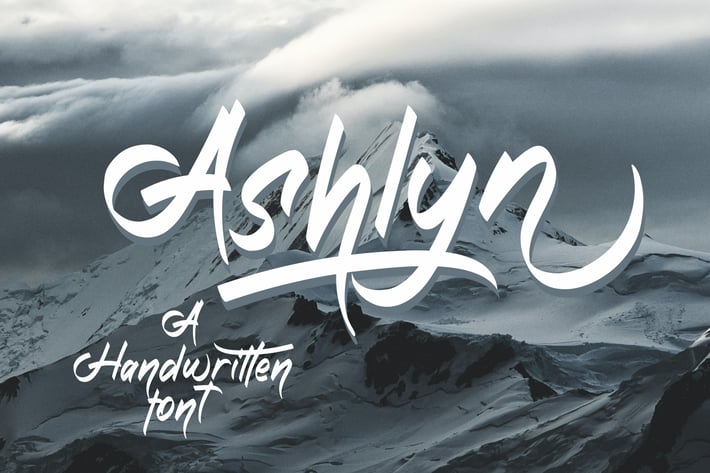
Ashlyn - Aesthetic Handwritten Font
Hello, let me introduce our new modern calligraphy font, it's called Ashlyn.
This font can be used easily and simply because there are many features in it. contains a complete set of lowercase and uppercase letters, assorted punctuation, numbers, and multilingual support. the font also contains multiple ligatures and many contain alternative Style Stylistic Sets